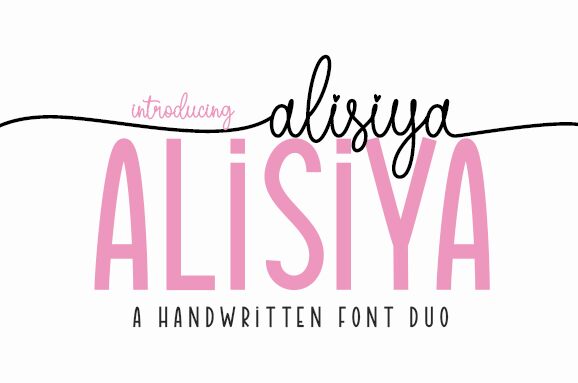
Alisiya, designed by Danar Nugroho, is a charming and delicate font that exudes femininity. With its cute handwritten style and light weight, it adds a whimsical touch to any project. Perfectly suited for wedding invitations and event announcements, Alisiya brings an air of romance to your designs.
Its flowing lines and graceful curves make it ideal for greeting cards, scrapbooking projects, and personal branding materials. Let Alisiya's playful elegance captivate your audience and infuse your creations with a touch of feminine charm.